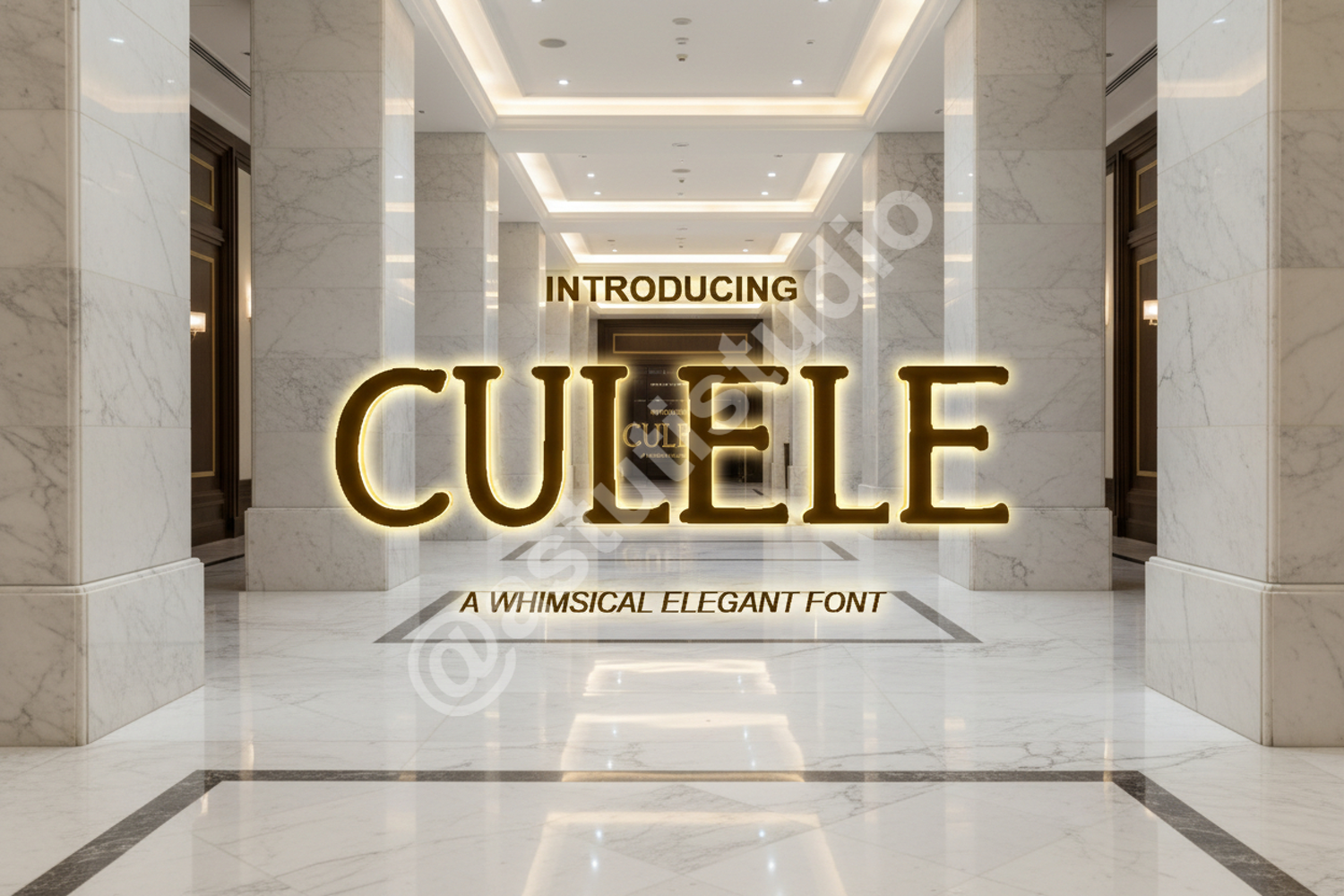
Culele - Modern & Elegant Serif Typeface
Culele
Elevate your design projects with Culele, a premium serif font that seamlessly blends classic elegance with a contemporary aesthetic. Crafted with precision and a focus on high-end appeal, Culele features sophisticated character shapes and balanced spacing that ensure your typography stands out with professional clarity.
- Unique ligatures for creative flair
- Luxury Branding and Identity: Create a memorable brand presence with refined letterforms.
- Wedding Invitations and Stationery: Add a touch of timeless romance to your special event designs.
- Editorial and Magazine Layouts: Perfect for high-impact headlines and sophisticated body text.
- Social Media Graphics: Stand out on digital platforms with clean and stylish typography.
- Logo Design and Packaging: Give your products a premium look that resonates with quality.